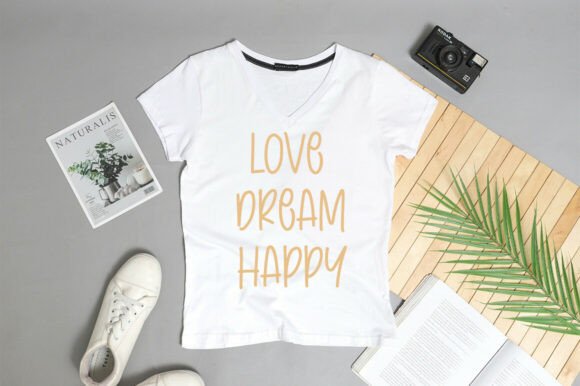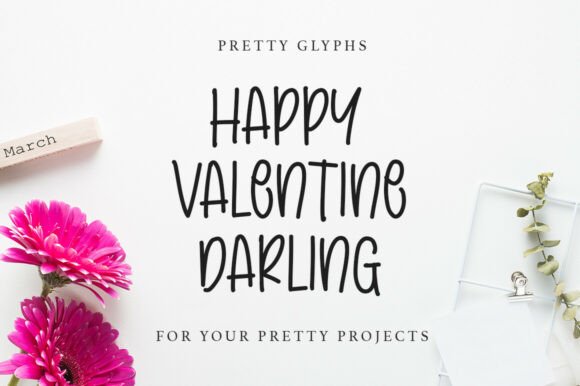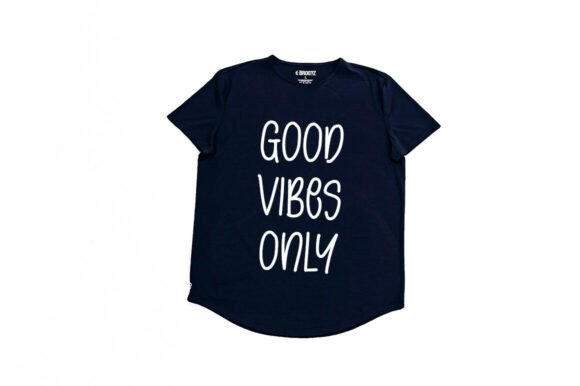
Introduction to Kerabat Font
Have you ever sat in front of a blank page, staring at a glowing screen, and suddenly felt an overwhelming urge to express yourself through the strokes of a pen? For creatives, this moment is all too familiar – a spark that ignites a passion for bringing unique ideas to life. The Kerabat Font is a testament to this very moment, a high-quality design resource that transcends the ordinary and speaks directly to the soul.
As a designer, you’re constantly on the lookout for that special something that sets your project apart from the rest. The Kerabat Font is that elusive element – a free download that boasts a transparent background, making it the perfect addition to any creative project. Its handcrafted texture and dynamic movement are sure to captivate your audience and leave a lasting impression.
Key Features of Kerabat Font
- High-quality font design suitable for creative projects, offering a unique and modern aesthetic.
- Available in a transparent background format, making it easy to integrate with various design elements.
- Supports various languages, making it a versatile design resource for global creative projects.
- Unique characteristics, such as its modern and minimalist design, set it apart from other fonts, making it a great addition to any design portfolio.
Honest Review: Kerabat Font
I recently stumbled upon the Kerabat Font and was excited to give it a try in my current creative project. The font has a unique and quirky style that can really add a personal touch to any design.
What works well for me is the font’s versatility. I’ve used it for various design elements, from headings to body text, and it looks great in both cases. The transparent background feature also makes it easy to customize and layer with other design elements. ✨ The font is also a great addition to any designer’s toolkit, and the fact that it’s a free download makes it an even more valuable resource.
- Unique and quirky style that adds a personal touch
One limitation I’ve noticed is that the font may not be suitable for all types of projects. The quirky style may not be the best fit for more formal or professional designs. ⚠️ However, for creative projects or personal designs, the Kerabat Font is a great choice.
Overall, I’m really impressed with the Kerabat Font and would definitely recommend it to fellow designers. It’s a high-quality design resource that’s perfect for adding a personal touch to your creative projects.
Common Use Cases for Kerabat Font
Kerabat Font is suitable for a wide range of design projects, including logos, brochures, business cards, and infographics. Its transparent background feature makes it ideal for creating visually appealing designs with layered elements.